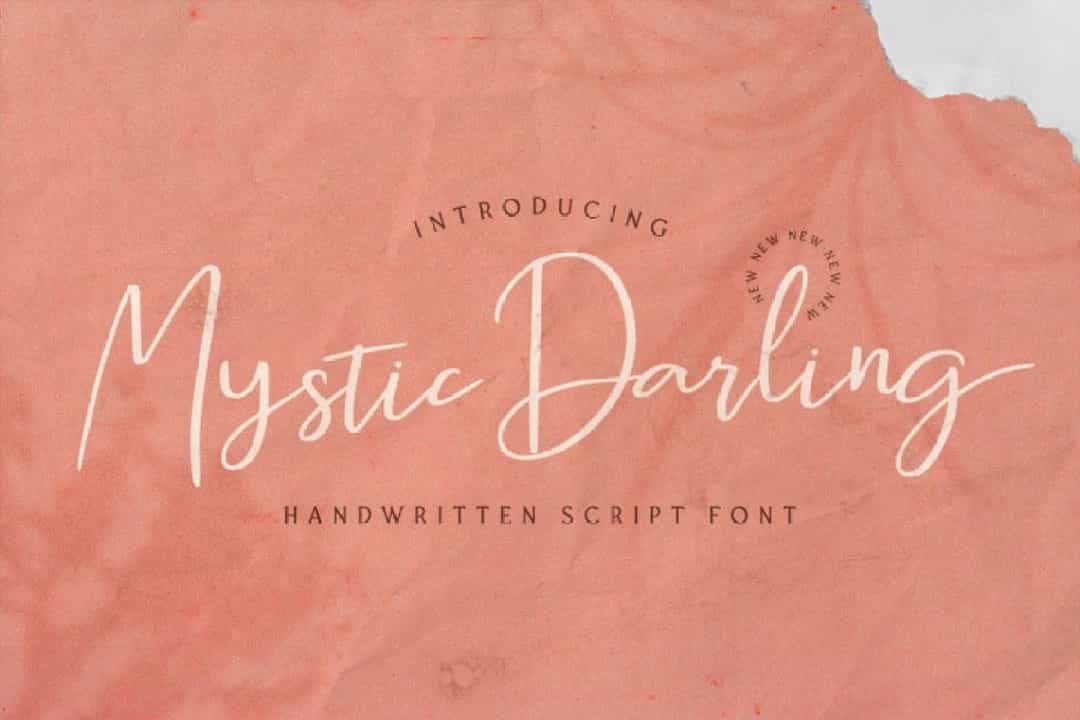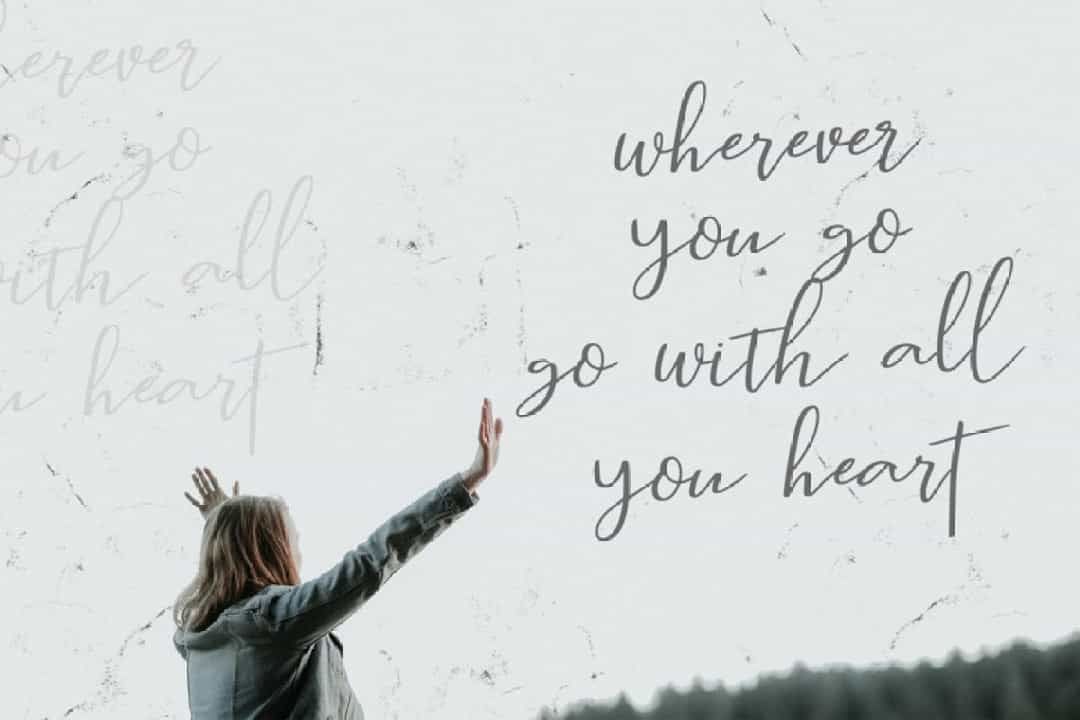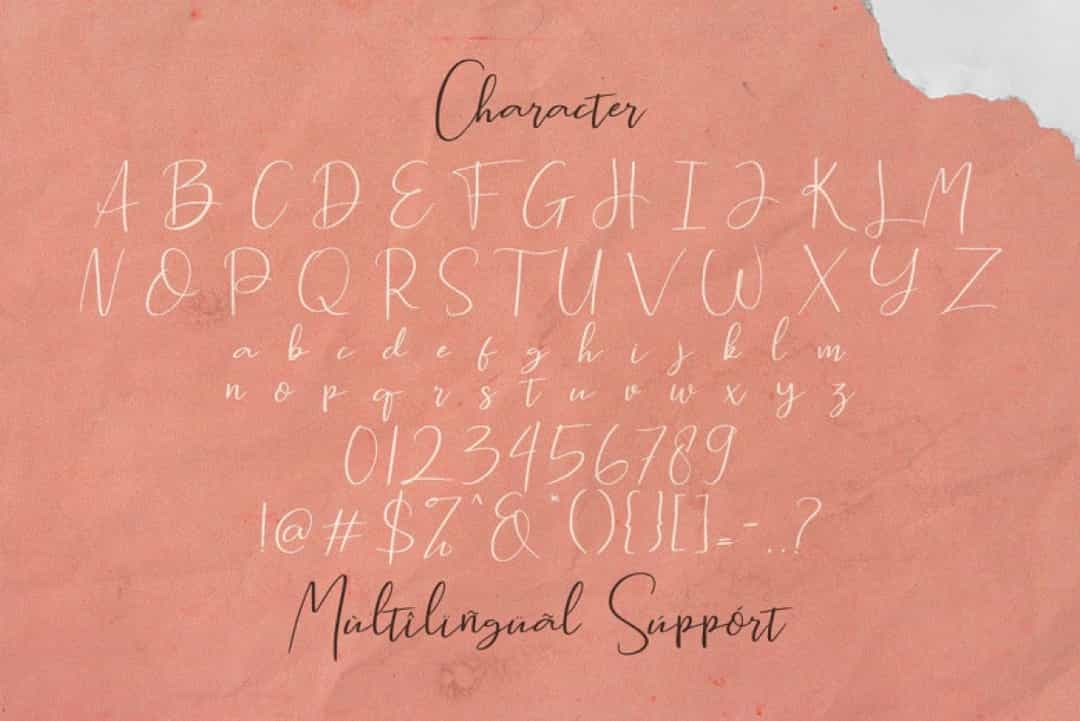
Mystic Darling is a sophisticated modern, contemporary hand-written feminine typeface. Uppercase letters are perfect for monograms on wedding invitations and logos. Make use of this font on wedding invitations branding, packaging, magazines, letterpress addresses as well as menus for restaurants, social media greeting cards, headers, and more.